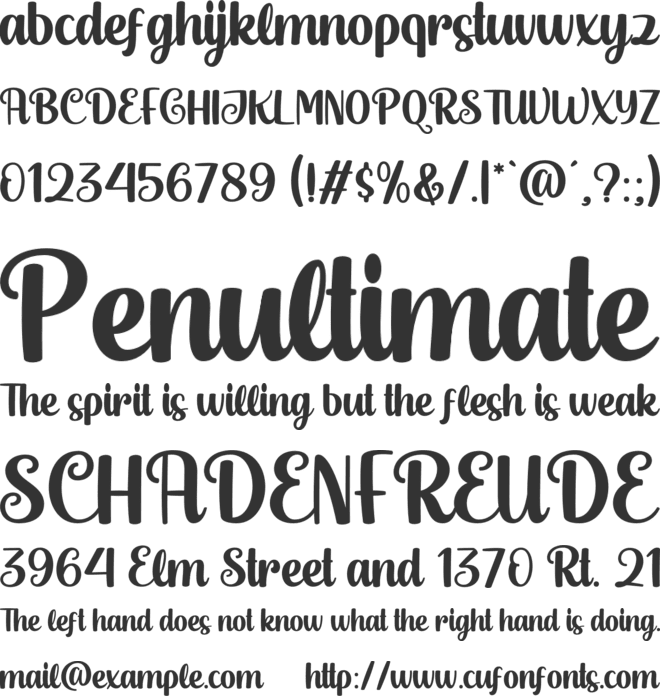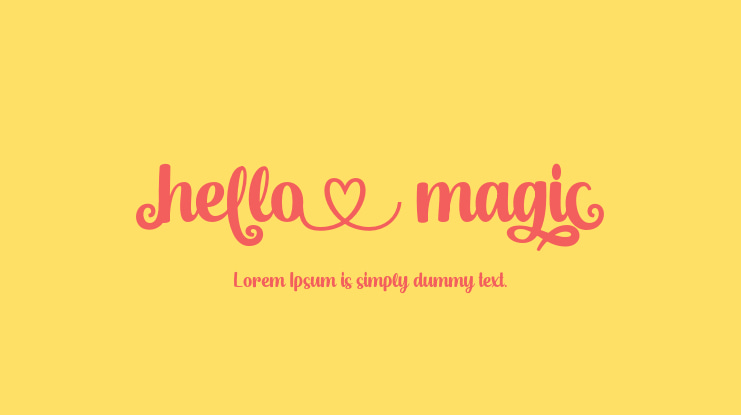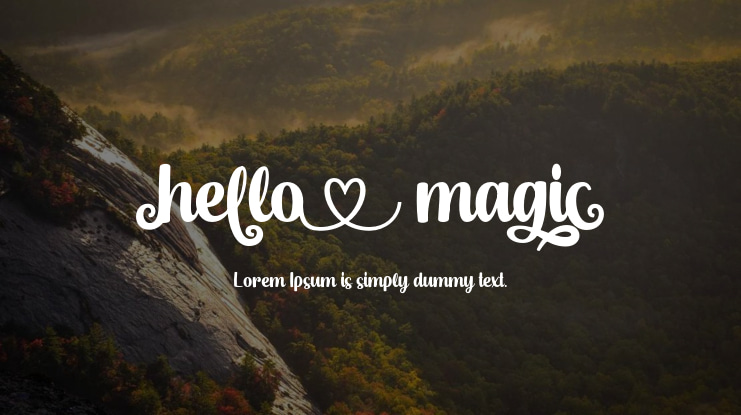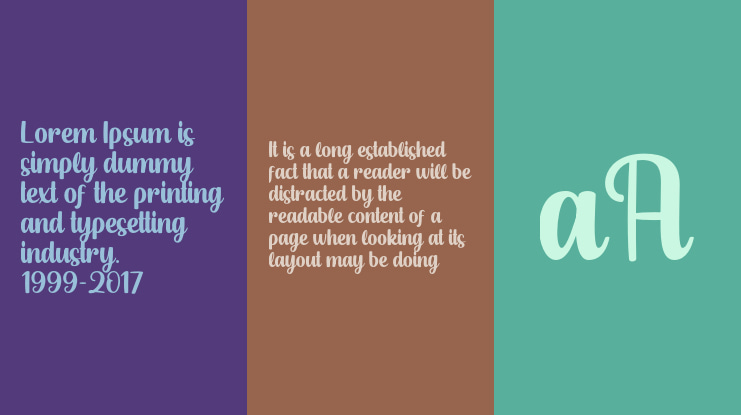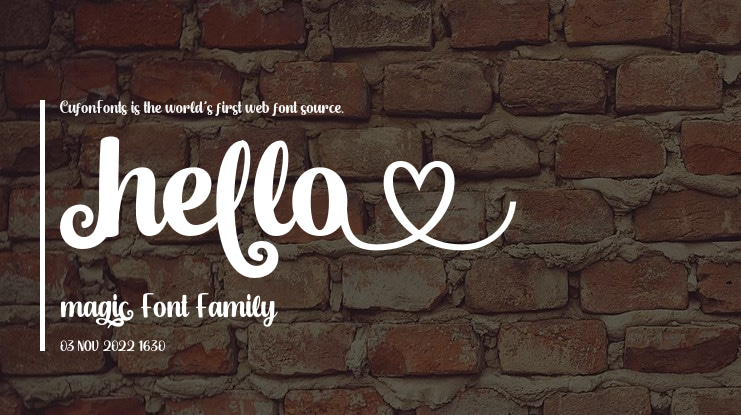
Hello Magic Font
Welcome to the world of Hello Magic, a beautifully crafted font that offers a wide range of alternative styles, giving you limitless design options. This one-of-a-kind font is equipped with PUA encoding, allowing for easy access to all the unique glyphs and swashes, making the design process effortless. Enhance your projects with this mesmerizing typeface and elevate your designs to a whole new level of captivating charm. Let Hello Magic transform the mundane into something extraordinary. And remember, always design with passion and joy!